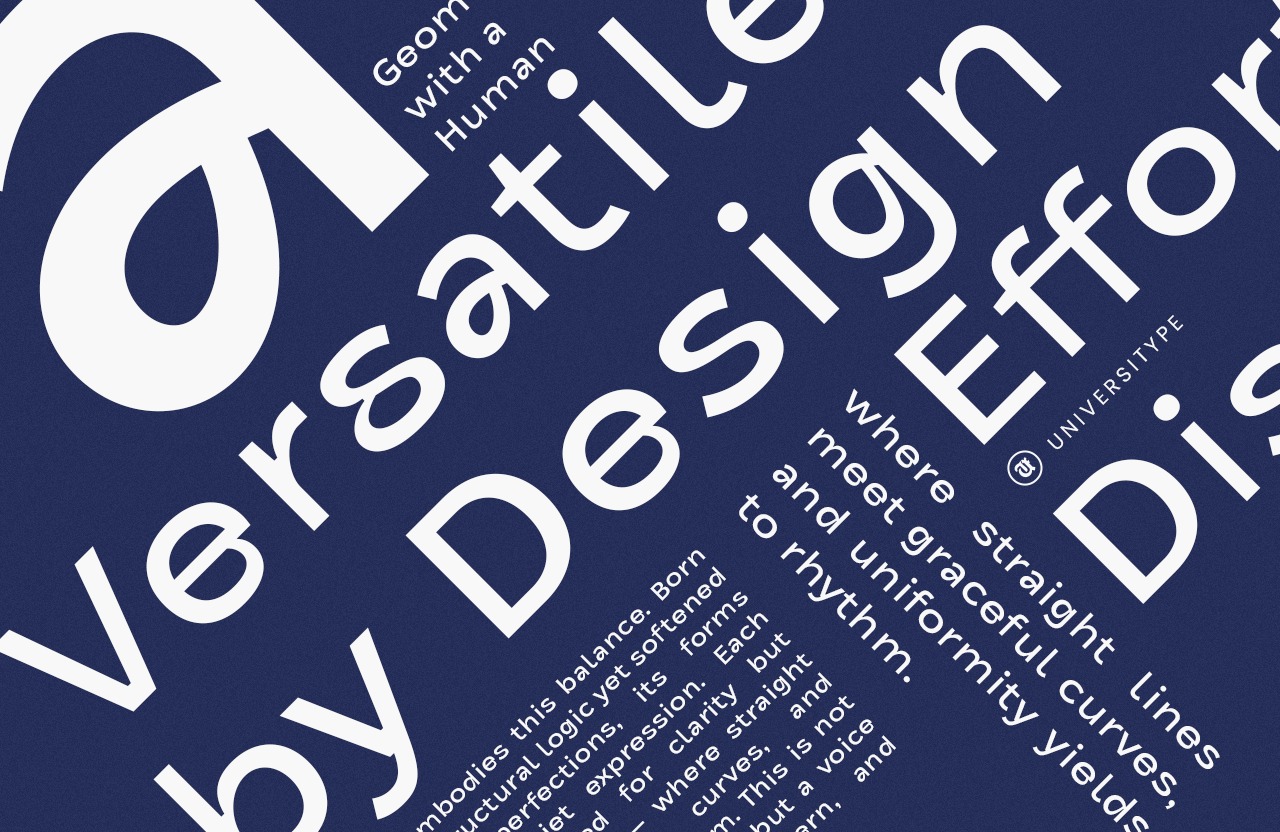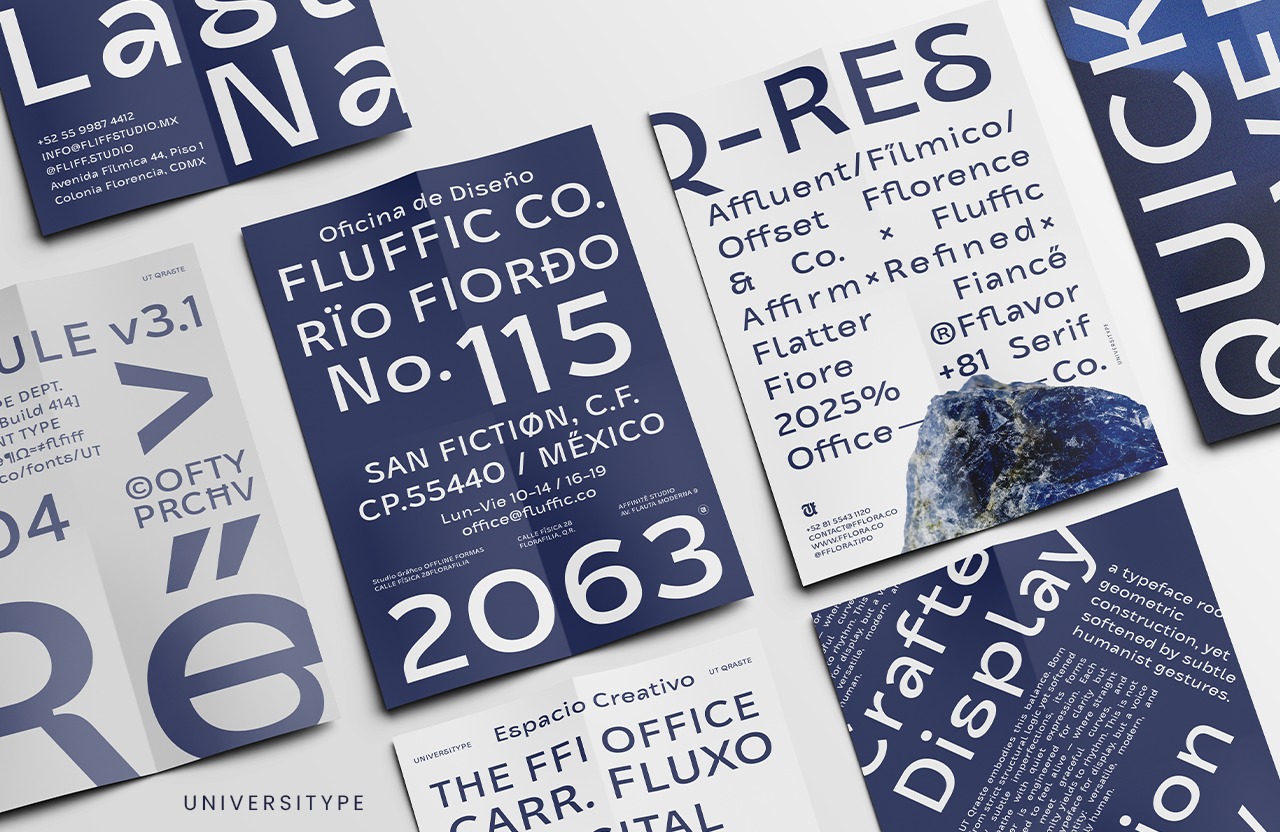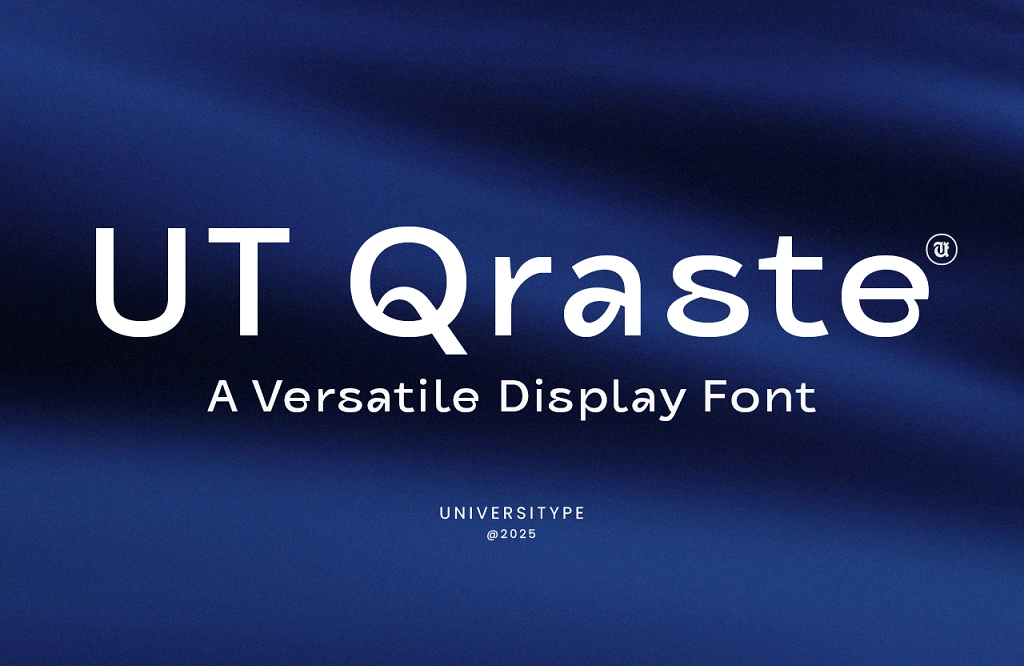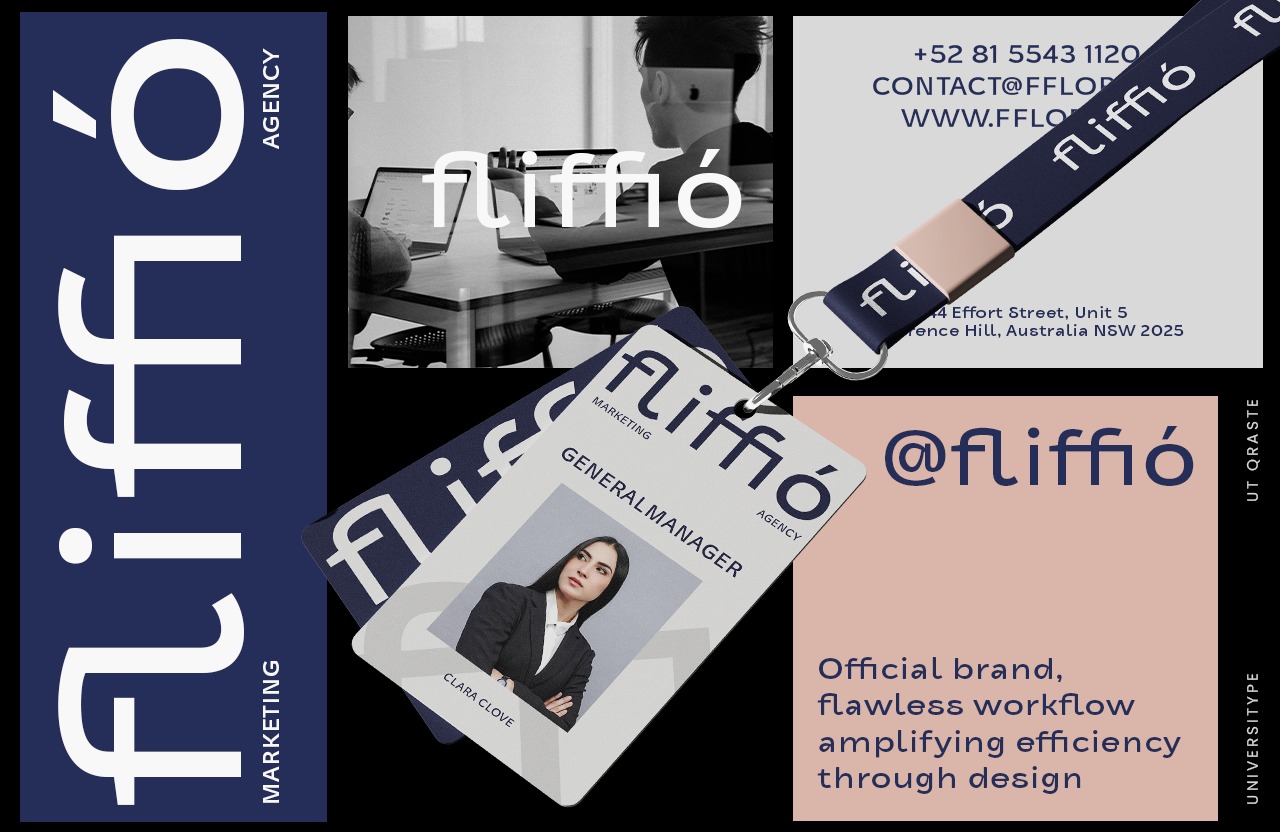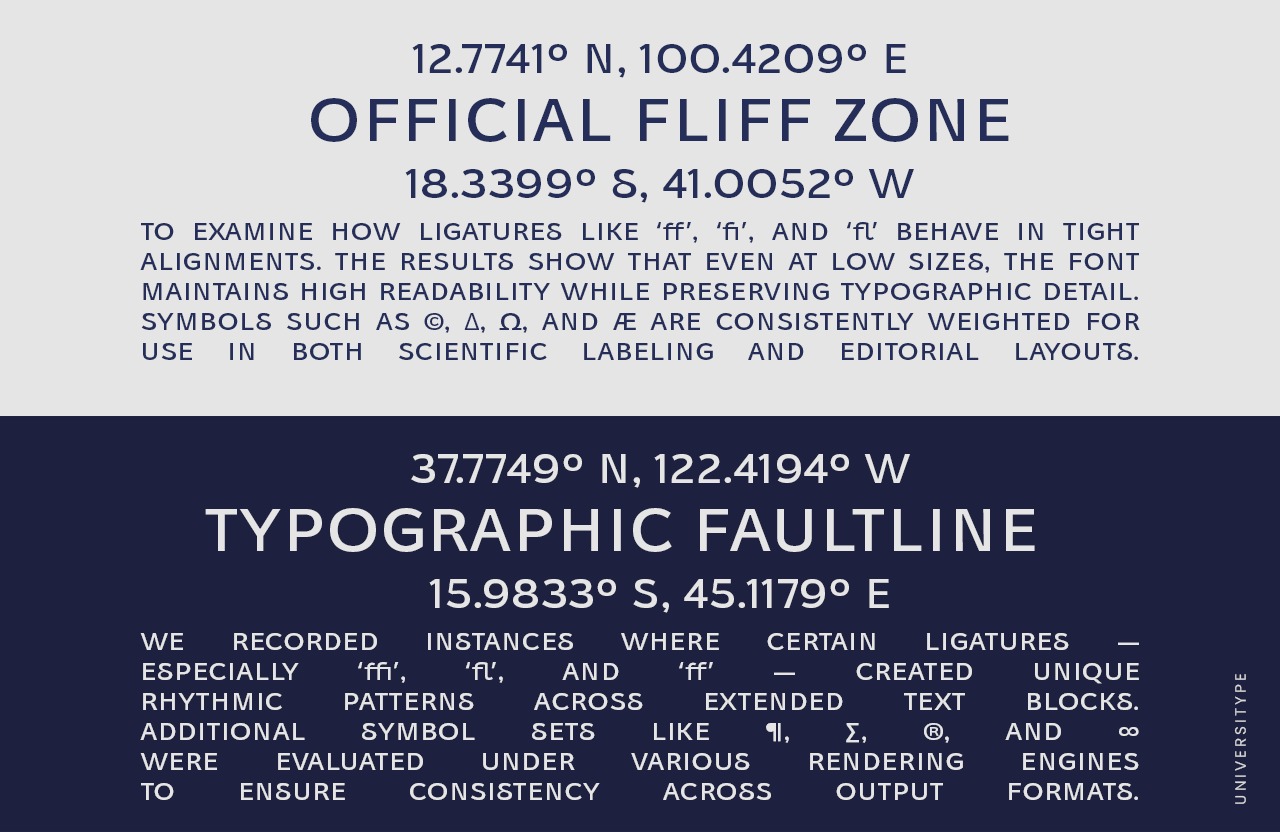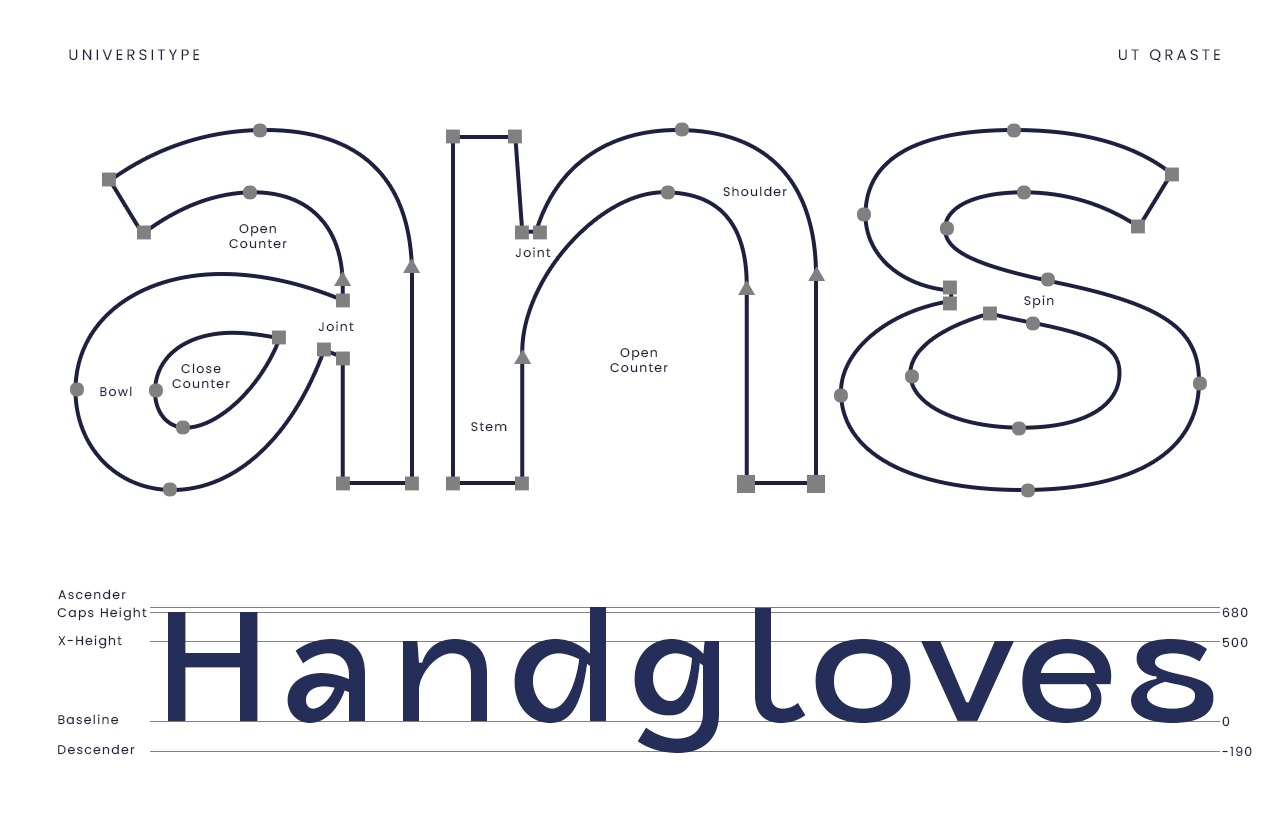
UT Qraste: A Versatile Display Font
Discover UT Qraste, a versatile display font that blends smooth curves with geometric precision. Elevate your projects with this distinctive typeface.